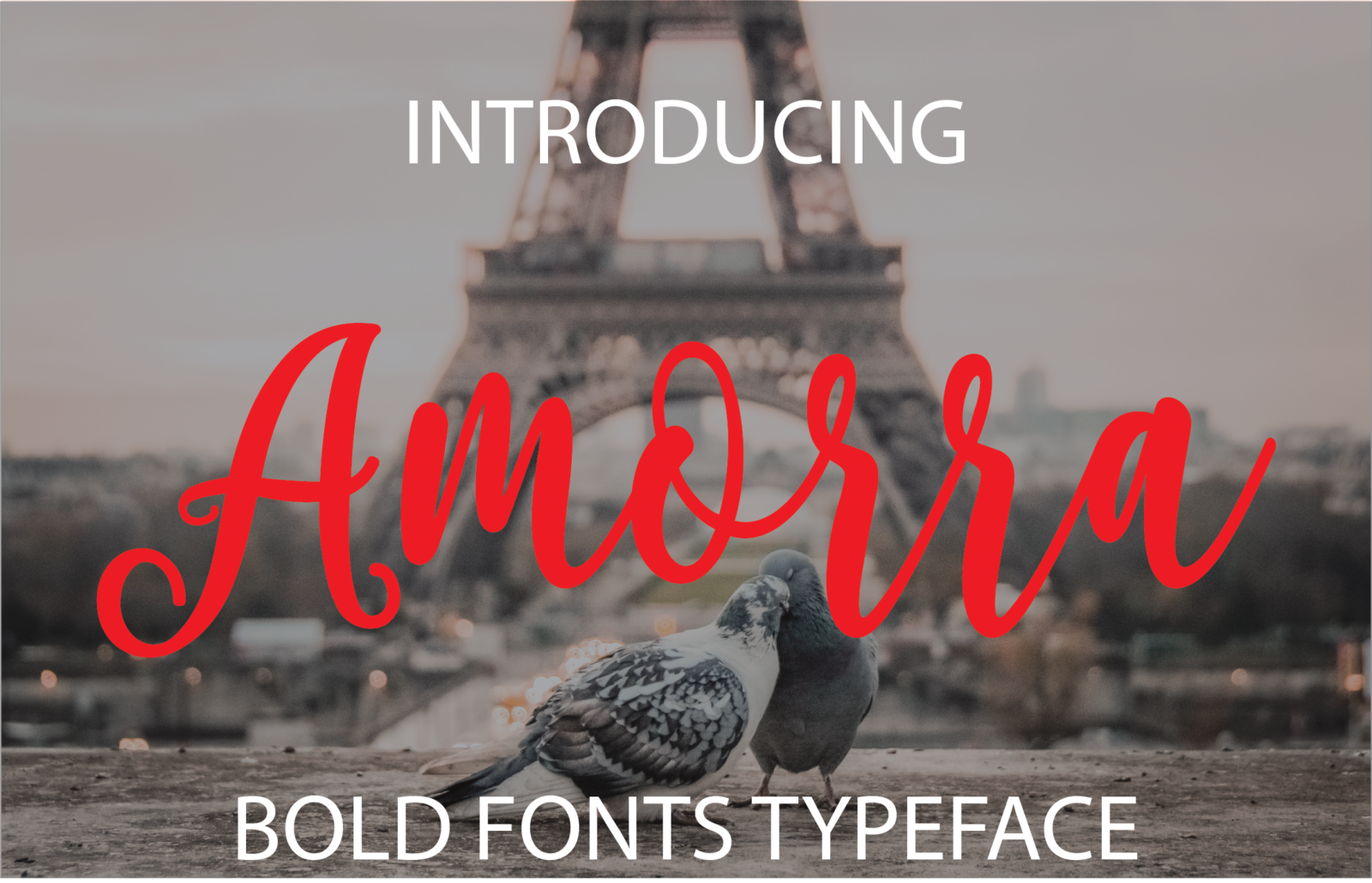
The Amorra Font: A Lovely Script Font for Creative Projects
I still remember the frustration of working on a design project, hours spent searching for the perfect font, only to come up empty-handed. My client wanted a script font that exuded warmth and personality, but everything I found seemed either too formal or too quirky. That’s when I stumbled upon the Amorra Font, and it instantly became my go-to choice for a wide range of creative projects.
An Honest Review of Amorra Font
- ✨ The casual appeal of Amorra Font makes it perfect for creative projects that require a personal touch.
- ✅ Its thickly weighted script design gives it a bold and eye-catching look.
- 💻 The font’s adaptability makes it suitable for various uses and mediums, from digital designs to print materials.
- 🎨 The relaxed vibe of Amorra Font makes it an excellent choice for designers looking to add a touch of warmth to their work.
While Amorra Font is an excellent choice for many projects, there are a few things to keep in mind:
- ⚠️ The font’s casual nature might not make it the best fit for very formal or traditional designs.
- 🤔 Some users might find the font’s thick weighting can make it difficult to read at very small sizes.
The Designer Inspiration Behind Amorra Font
Amorra Font was designed with the intention of creating a script font that feels both personal and approachable. The designer aimed to craft a font that would be perfect for creative projects, such as invitations, branding, and social media graphics. With its casual appeal and thickly weighted design, Amorra Font is the result of a careful balance between elegance and playfulness.
| Font Name | Amorra Font |
| Author | ed.creative |
Q: What type of projects is Amorra Font best suited for?
A: Amorra Font is versatile and can be used for a wide range of projects, including invitations, branding, social media graphics, and more.
Q: Is Amorra Font easy to read?
A: Amorra Font is generally easy to read, but its thick weighting can make it more challenging at very small sizes.